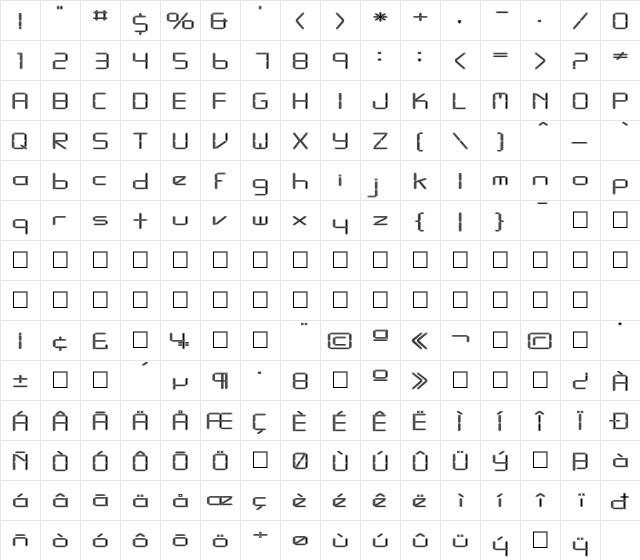
FZ DIGITAL 10 CONTOUR EX Normal Font Preview
FZ DIGITAL 10 CONTOUR EX Normal
FZ DIGITAL 10 CONTOUR EX Normal Font Details
Design Context for FZ DIGITAL 10 CONTOUR EX Typeface
FZ DIGITAL 10 CONTOUR EX has a distinctly futuristic character, with geometric precision and clean angles that feel at home in technology, gaming, and sci-fi contexts.
Pro Tip: Use FZ DIGITAL 10 CONTOUR EX in combination with a neutral sans for body text. Let it define the brand voice in headlines while keeping reading comfortable elsewhere.